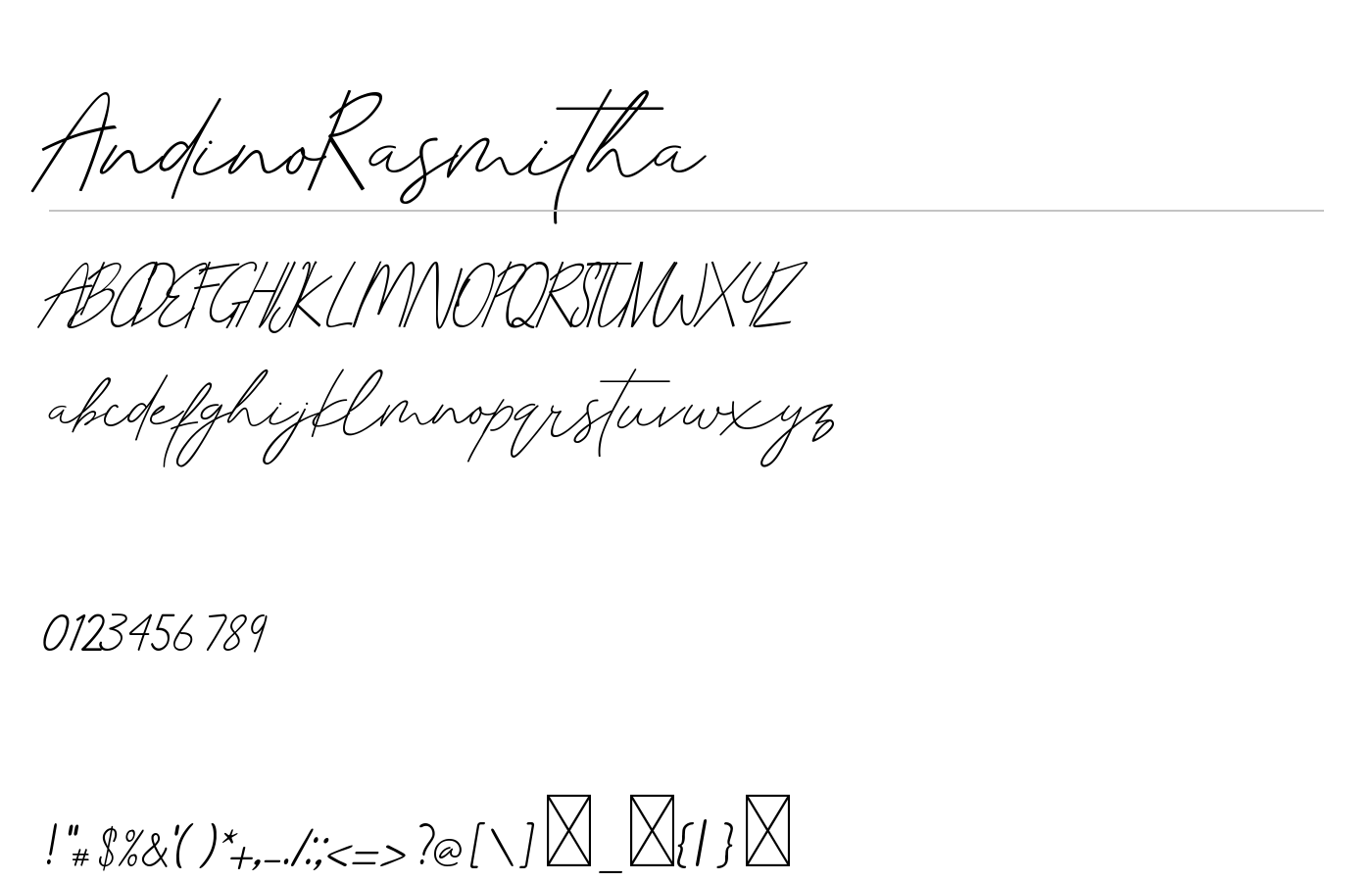
AndinoRasmitha is a delicate, handwritten script font characterized by its slender strokes and elegant, flowing letterforms. It has a light weight and a tall x-height, giving it an airy and graceful appearance, perfect for adding a personal, artistic touch. This font works beautifully for invitations, branding, and any design seeking a refined, intimate, and stylish feel.
AndinoRasmitha Font
About AndinoRasmitha Font